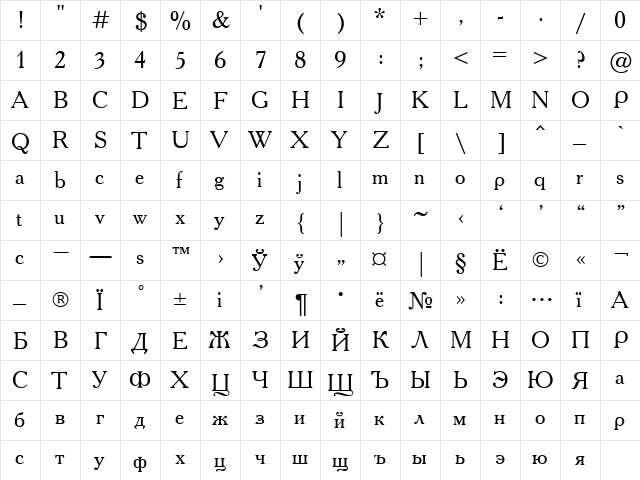
Academia Plain
Design Context for Academia Typeface
Academia offers clean, dependable letterforms without strong stylistic allegiance, making it a practical choice for designers who need flexibility.